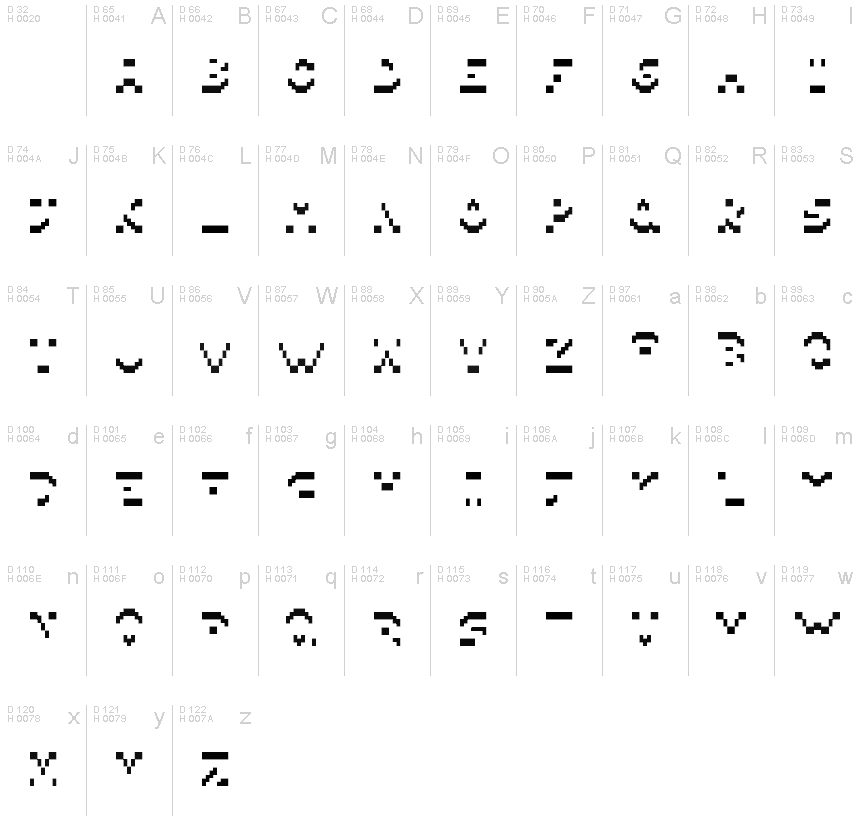
PixIllegible
PixIllegible is a captivating bitmap font that exudes a distinct pixelated charm. Designed by the talented MrtheNoronha, this font boasts a striking, retro-inspired aesthetic that immediately captures the eye. Its blocky, distorted letterforms lend a vintage, arcade-like quality, making it an excellent choice for projects seeking a nostalgic, low-fi vibe.
PixIllegible's pixelated style lends itself well to a variety of applications, from vintage-inspired branding and packaging to dynamic video game user interfaces. Its bold, attention-grabbing presence makes it a versatile tool for designers seeking to create eye-catching typographic elements that stand out in digital or print media.